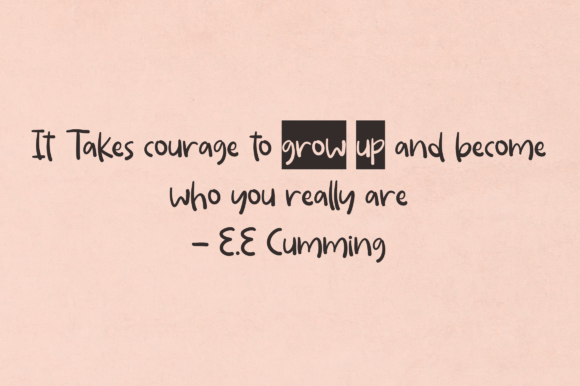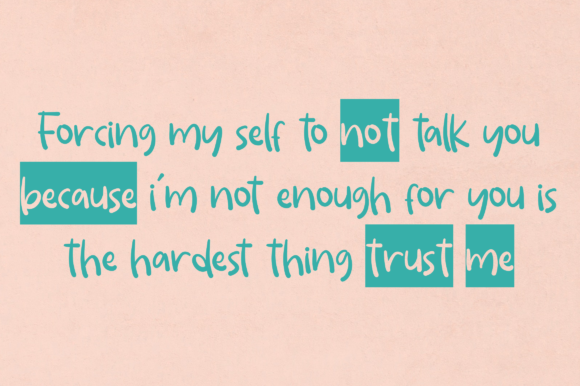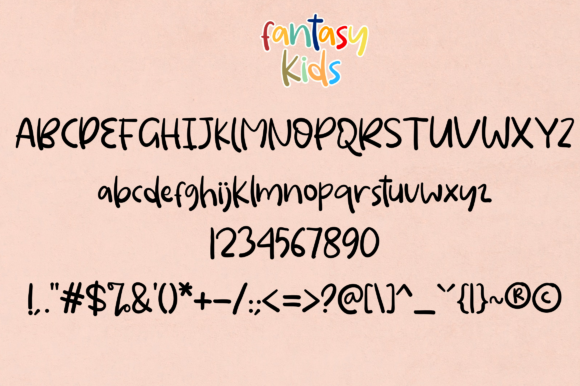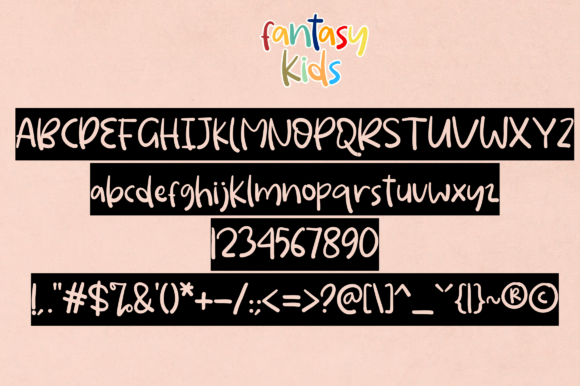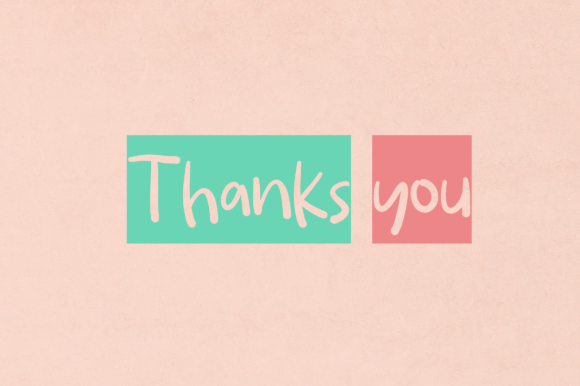
Introduction to Fantasy Kids Font
Fantasy Kids is a playful and quirky handwritten font perfect for any design you wish to create.
Add it to your most creative ideas, and notice how it makes them come alive .
Key Features of Fantasy Kids Font